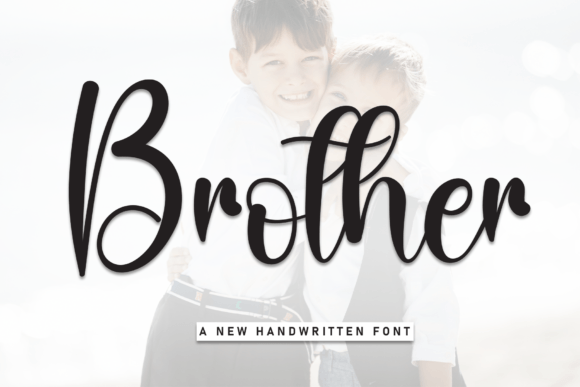
The Brother Font: A Charming Handwritten Delight
I’ll never forget the time I was working on a project for a client who wanted a personal, stylish touch. I had spent hours scouring the internet for the perfect font, but nothing seemed quite right. That was until I stumbled upon the Brother font. Its fluid strokes and friendly curves immediately caught my eye, and I knew I had found the one. In this article, I’ll share my love for the Brother font, its features, and how to make the most of it in your designs.
A Personal Review: What I Love About Brother Font
So, what makes the Brother font so special? Here are a few things that I absolutely love:
• ✨ Warm and personal touch: The Brother font has a unique, handwritten feel that adds a touch of warmth and personality to any text.
• ✅ Fluid strokes: The font’s fluid strokes make it perfect for creating flowing, natural-looking text.
• 💬 Friendly curves: The Brother font’s curves are smooth and inviting, making it perfect for designs that need a friendly, approachable feel.
While the Brother font is amazing, it’s not perfect. Here are a few quirks to keep in mind:
• 🤔 Limited use in very small sizes: While the Brother font is beautiful in larger sizes, it can become a bit tricky to read in very small sizes.
• ⚠️ Some letter combinations may not work well: As with any font, some letter combinations may not work as well as others. Be sure to proofread your text carefully.
4. Experiment with OpenType features like Stylistic Alternates and Glyphs to add more personality to your text.
The Brother font was designed with the intention of creating a warm and personal handwritten font. The designer wanted to create a font that would add a touch of personality to any text, while still being easy to read. The result is a beautiful, fluid font that’s perfect for a wide range of design projects.
What is the Brother font best used for? The Brother font is perfect for designs that need a personal, stylish touch, such as invitations, greeting cards, and social media graphics.
Is the Brother font suitable for body text? While the Brother font is beautiful, it’s best used for headings and titles. For body text, a clearer font may be more suitable.